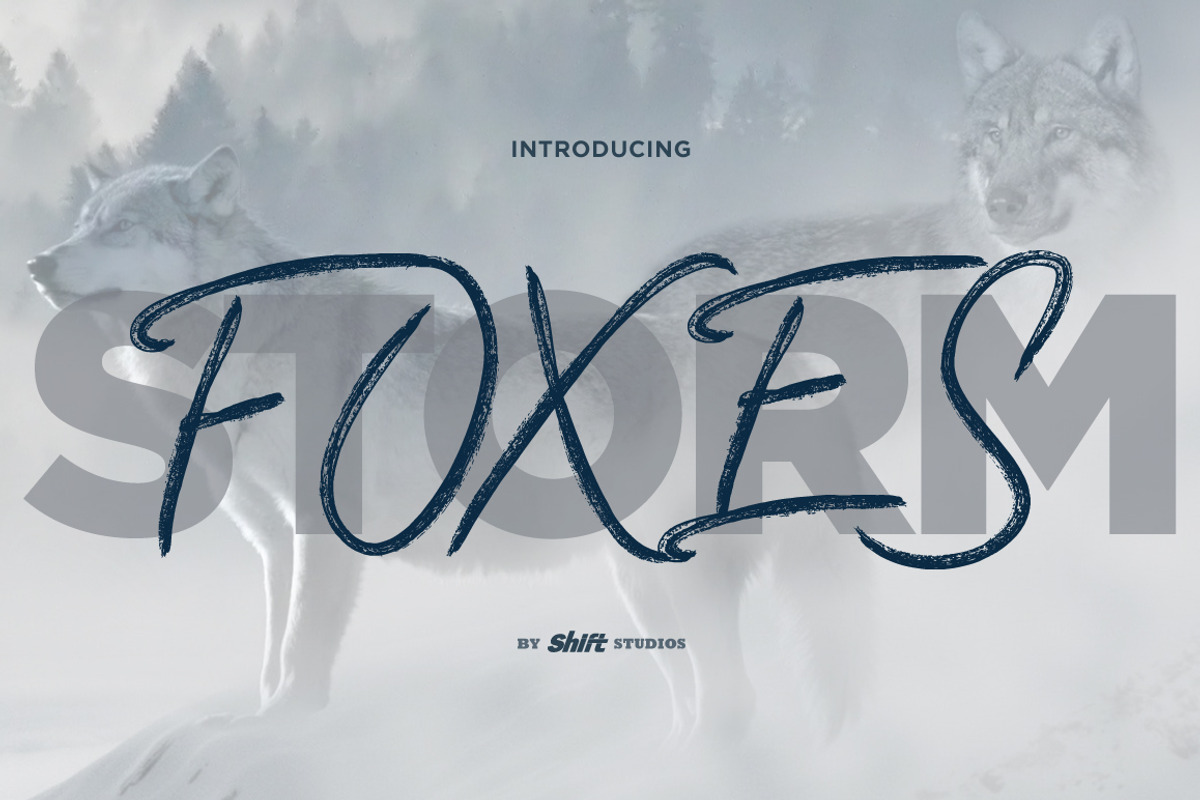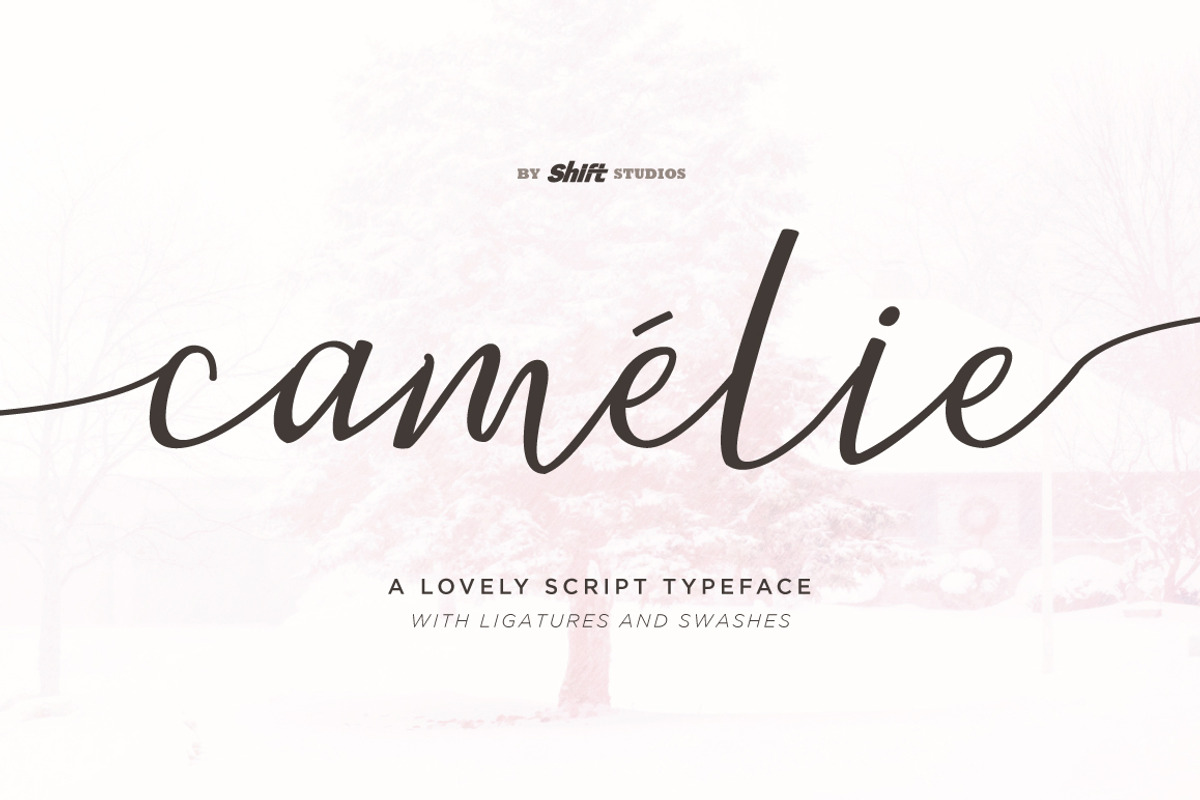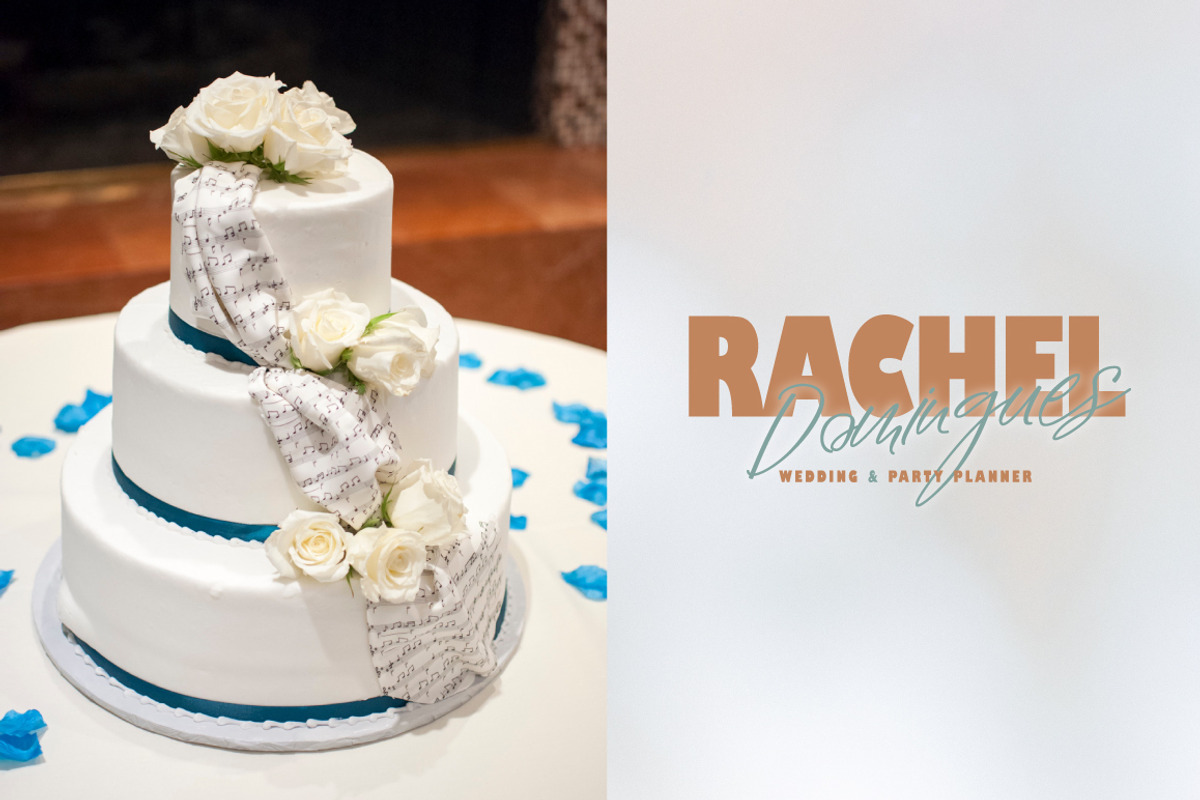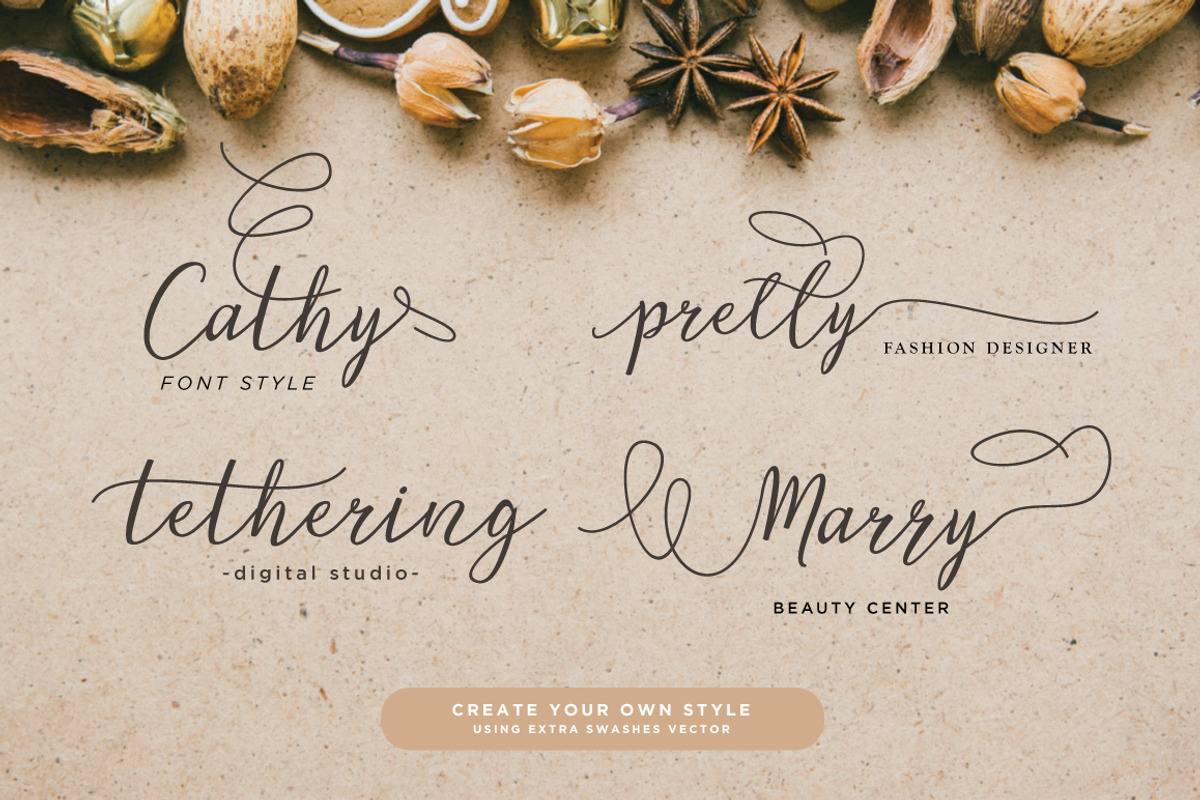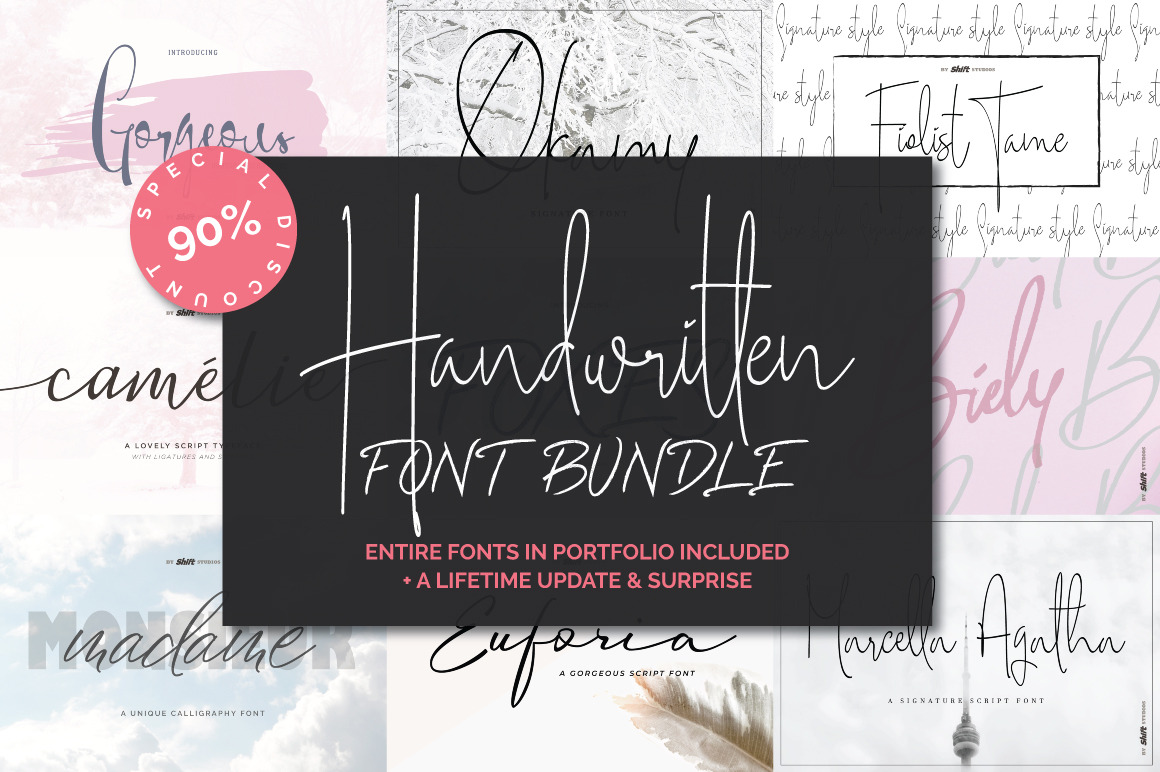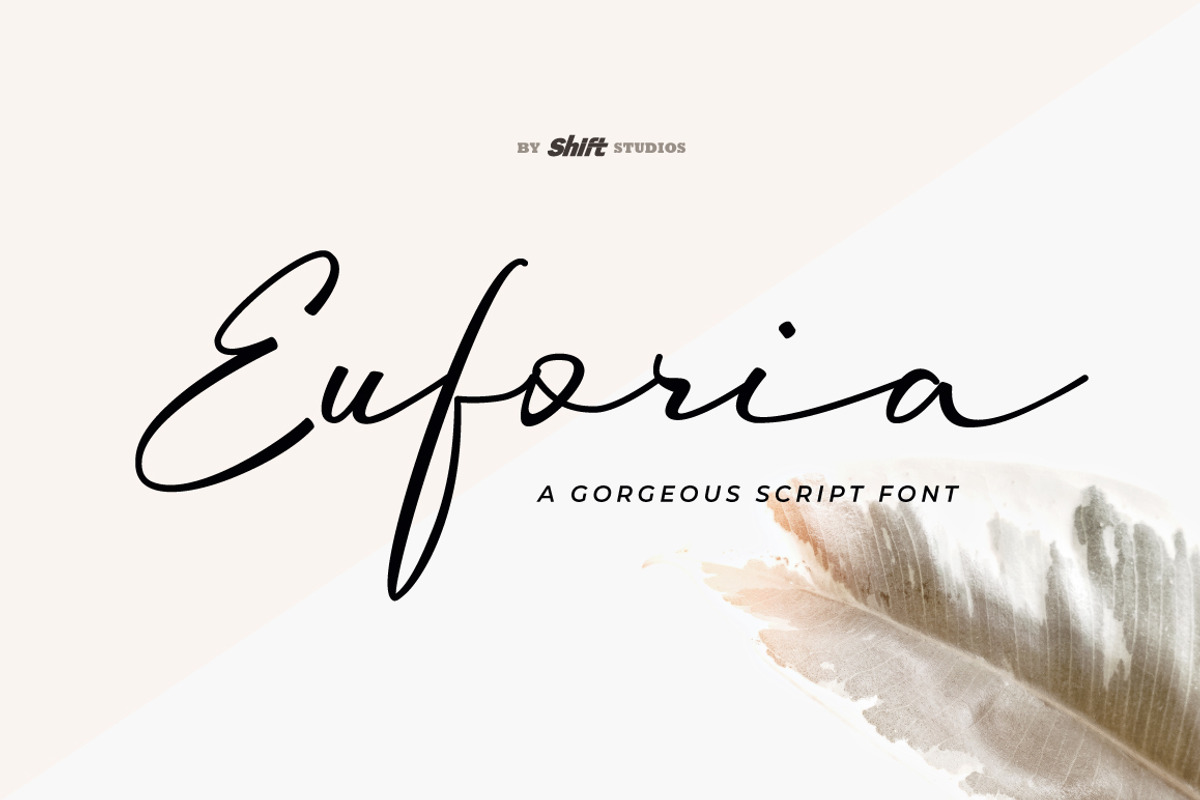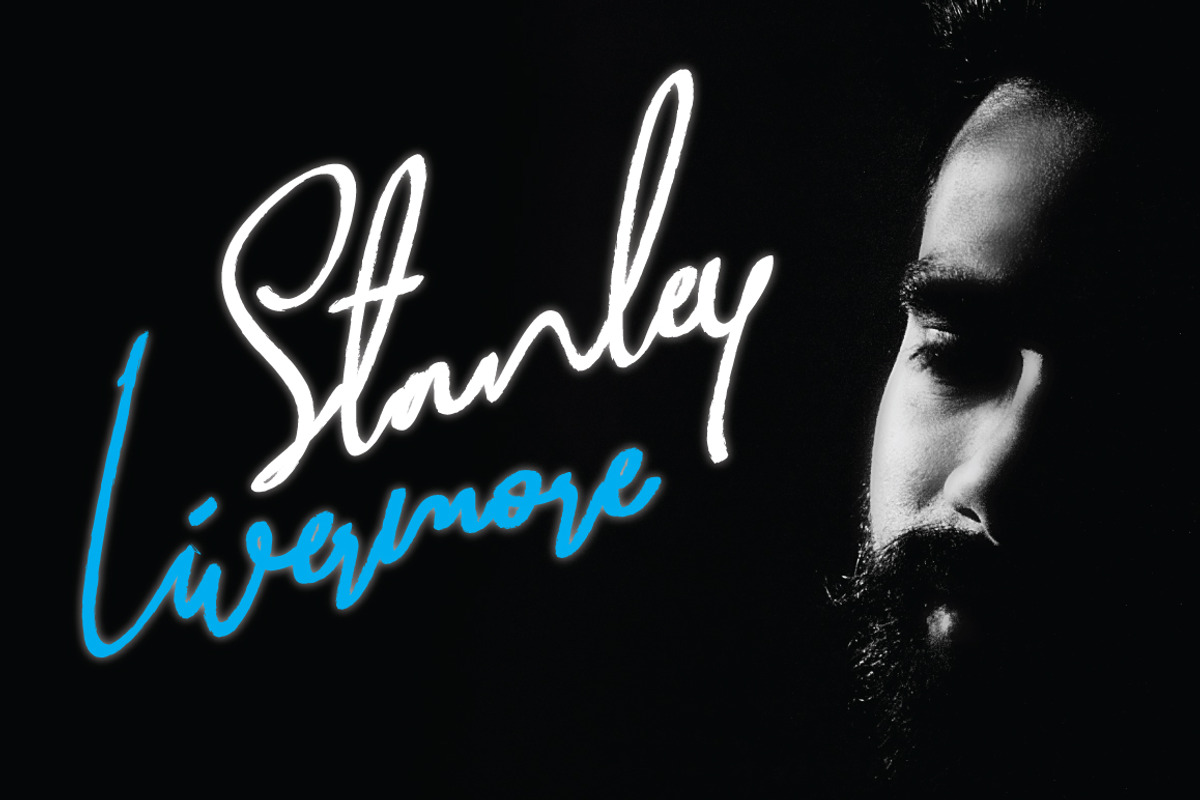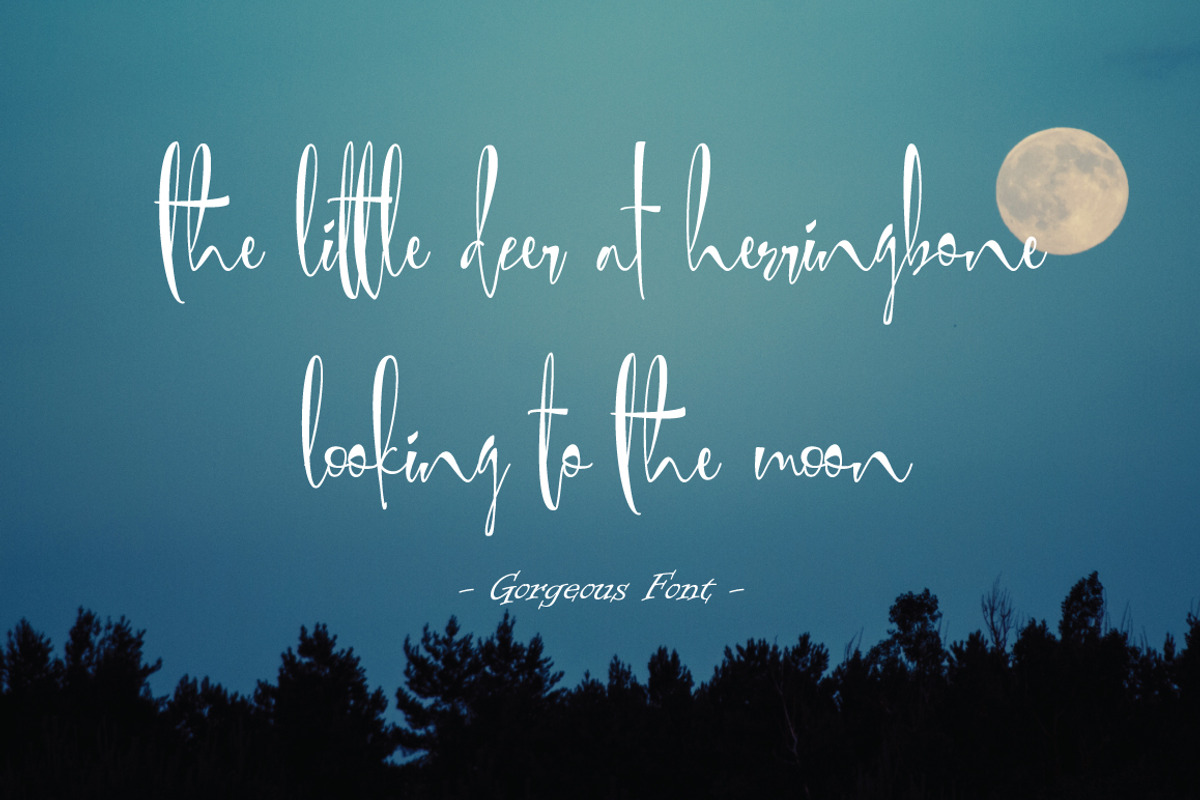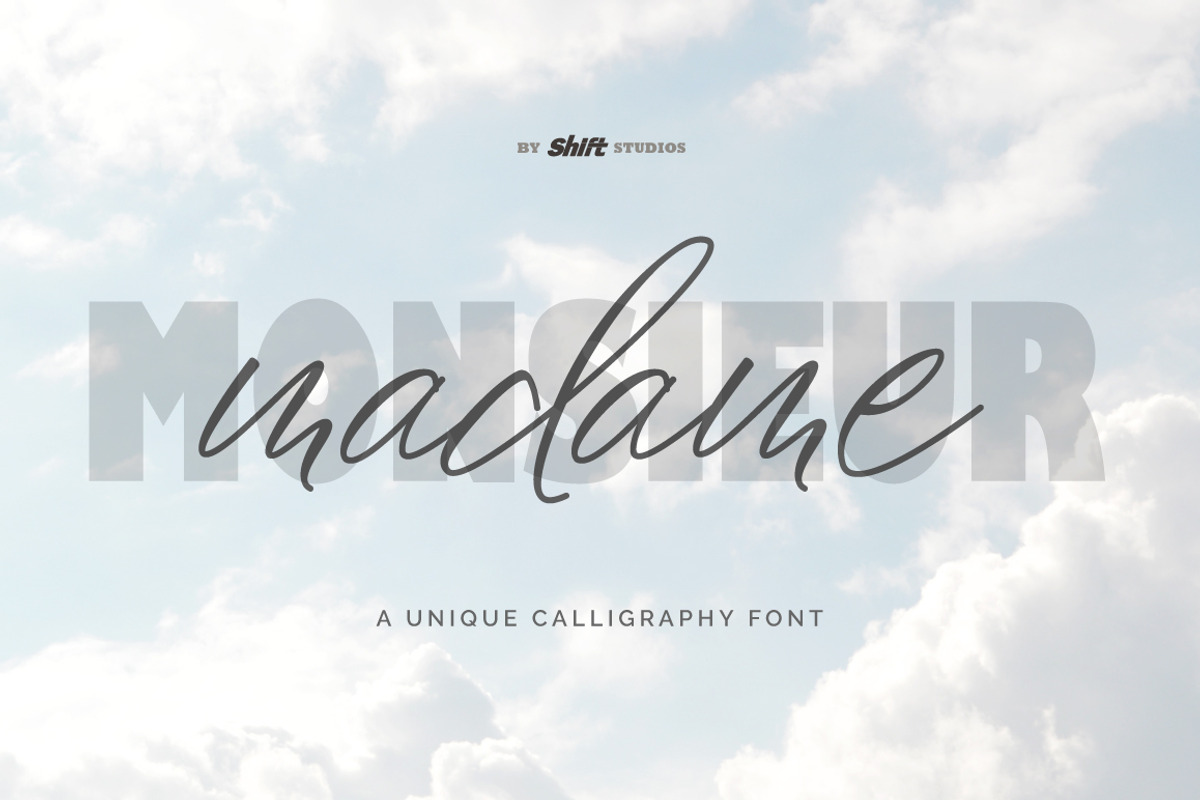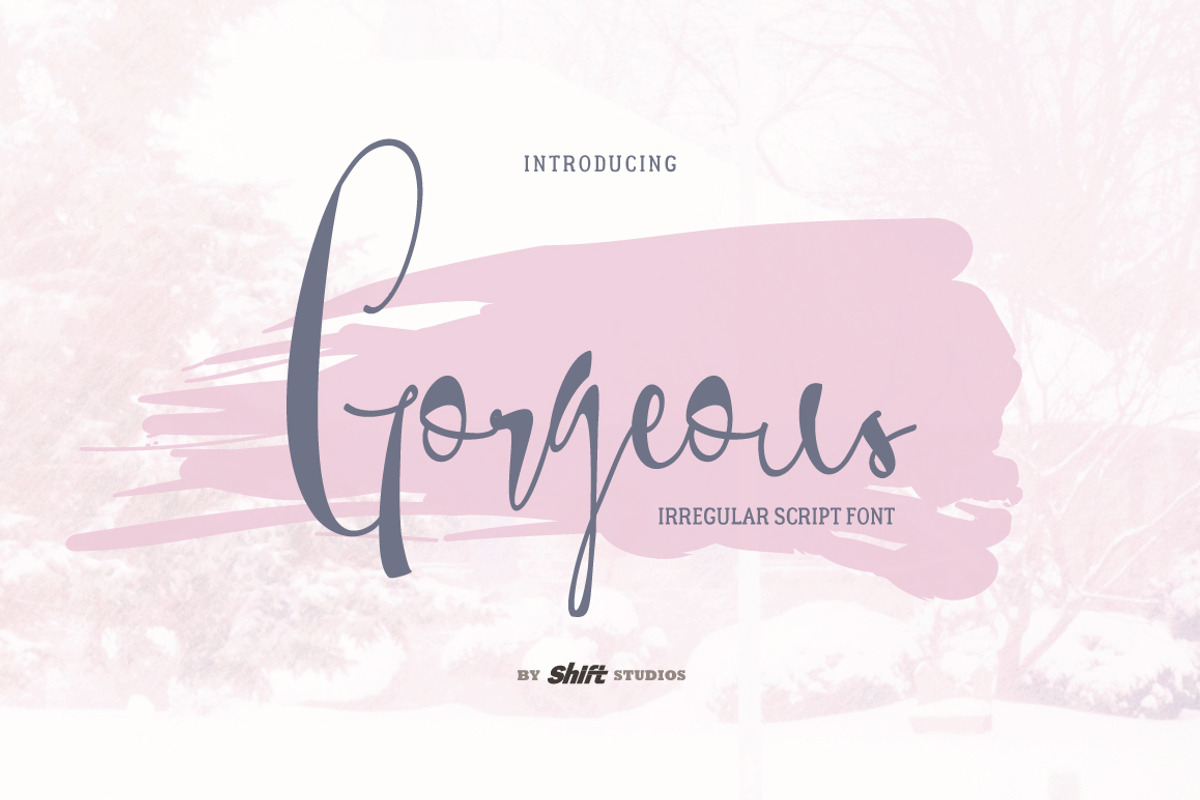
Handwritten Font Bundle
This bundle is perfect for displays, headers, invitations, blogs, poster and so much more, Gorgeous will become a bouncy essential in your font collection! Moreover, this script and handwritten font specifically established for real abstract handwriting looks and perfect also for A-Z signature in your special branding.
All the typefaces:
- Marcella Agatha https://crmrkt.com/WpNrN0
- Okamy https://crmrkt.com/Wp662D
- Fiolist Tame https://crmrkt.com/4Kp1K1
- Biely https://crmrkt.com/6KGb3O
- Gorgeous https://crmrkt.com/g21JWo
- Camelie https://crmrkt.com/g21PQ6
- Madame https://crmrkt.com/GW8E2a
- Foxes https://crmrkt.com/AyRXdD
- Euforia https://crmrkt.com/JqqVzV
- Mountain Peak (August 2018 Update) https://crmrkt.com/5jrqpK